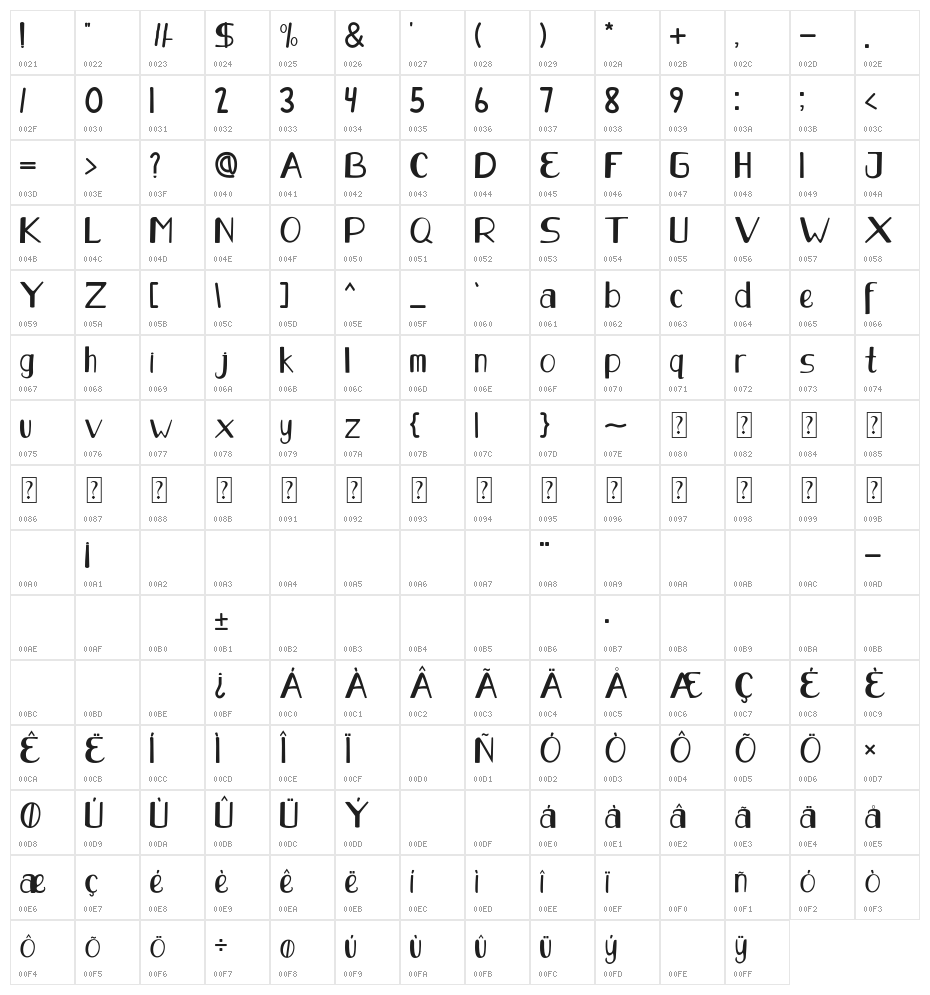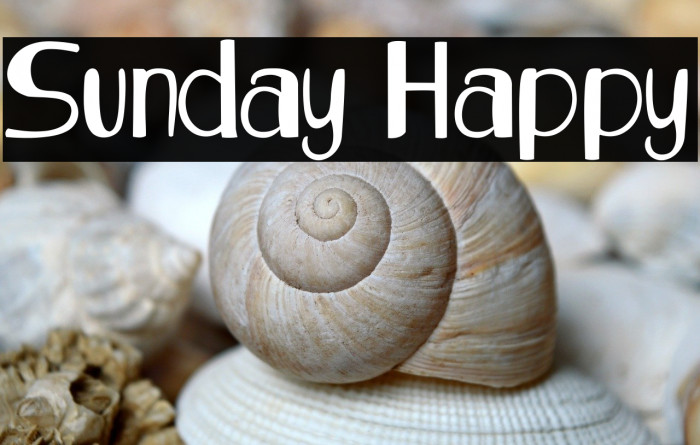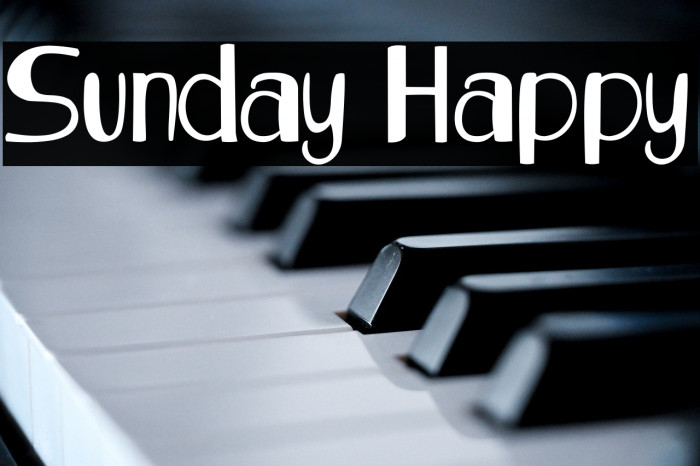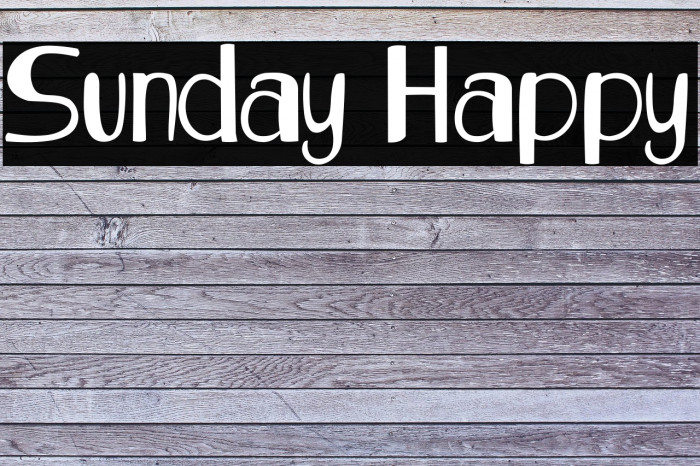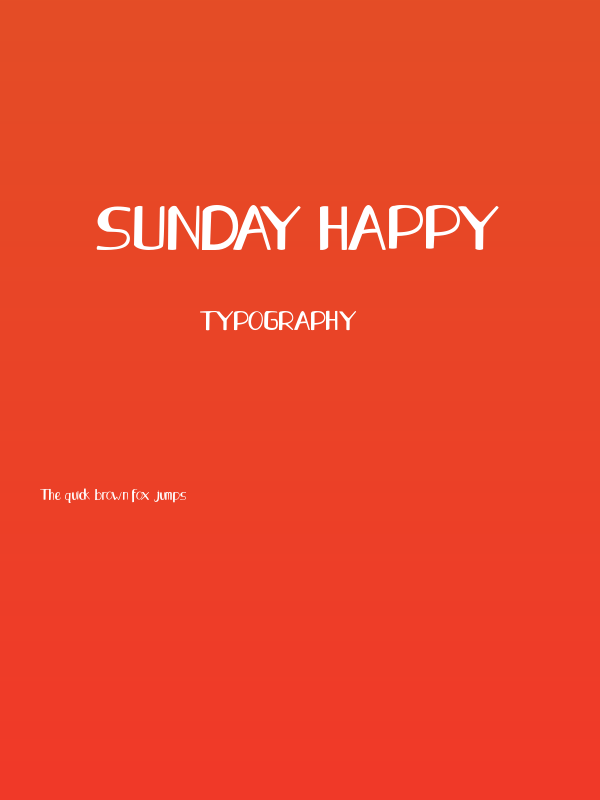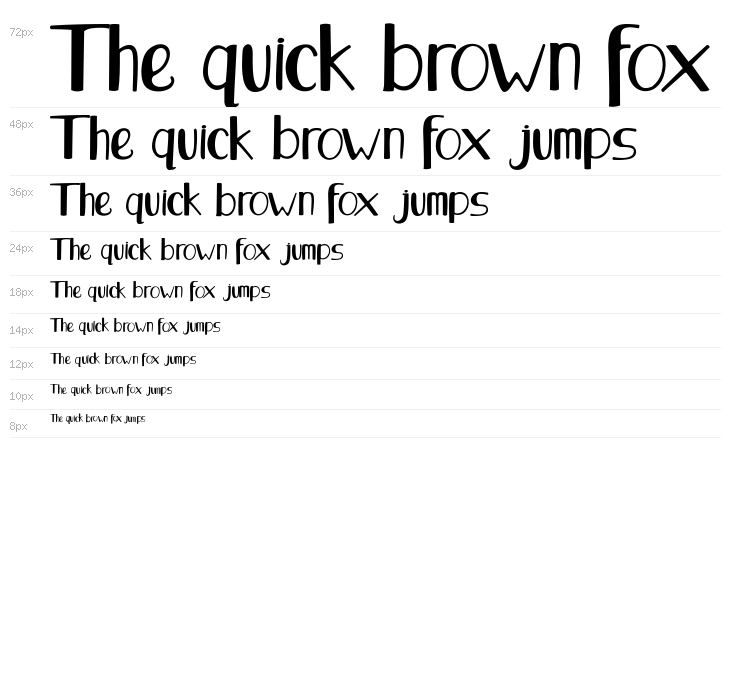
Sunday Happy Font
Sunday Happy Description
This playful and whimsical font features a unique blend of bold and thin strokes, creating a lively and dynamic appearance. The uppercase letters are characterized by their bold, rounded shapes with slight variations in width, giving them a hand-drawn feel. The lowercase letters maintain a consistent style, with elongated ascenders and descenders that add to the font's quirky charm. The numerals are bold and easy to read, while the special characters are crafted with the same playful spirit. Overall, this font exudes a sense of fun and creativity, making it ideal for projects that require a touch of personality.
Overall StylePlayful
Proposed ProjectsPerfect for children's books, playful branding, greeting cards, and creative posters.